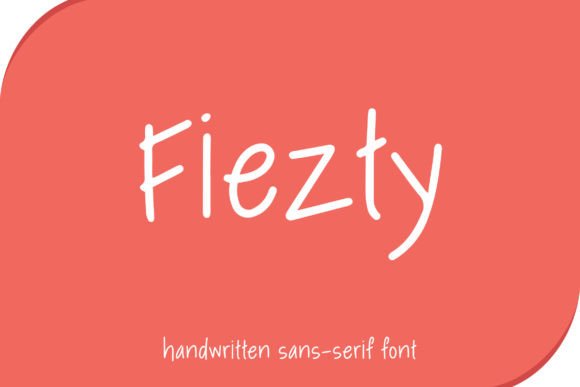
Introducing Fiezty Font, the exquisite handwritten font that exudes playfulness and charm. Crafted with utmost care by Mightyfire, Fiezty is a script font that dances across designs with its unique and captivating strokes. Its delicate curves and playful edges lend a whimsical touch to any project, leaving a lasting impression.
Dive into the world of Fiezty and discover a font that is as versatile as it is beautiful. Whether you're creating book titles, book content, wedding cards, wedding invitations, music covers, children's books, posters, advertisements, social media content, or logos, Fiezty seamlessly adapts to your vision, adding a touch of elegance and charm.
Fiezty is the perfect choice for those seeking a simple yet captivating logo design. Its ability to convey a personal and handcrafted feel makes it an ideal choice for businesses looking to create a lasting connection with their customers. With Fiezty, your logo will stand out from the crowd, attracting attention and leaving a memorable impression.